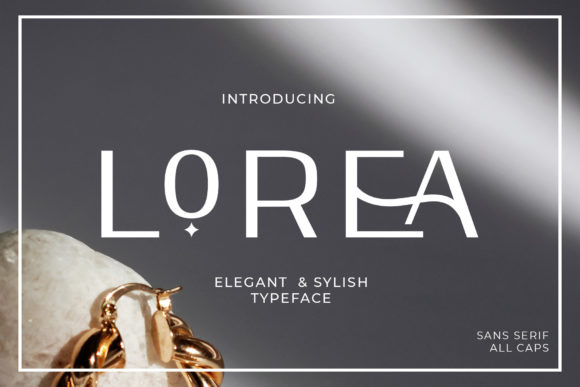
Introducing Lorea, the Modern Muse that elevates your digital designs. This captivating sans serif font, crafted by the masterful hands at Mytype Studio, is not just a collection of glyphs, but an artistic odyssey waiting to be explored. Every curve, every stroke, every meticulously designed detail exudes style, fluidity, and an undeniable charm that will leave you spellbound.
Lorea is an artistic chameleon, seamlessly adaptable to a myriad of projects. Its innate versatility makes it an ideal choice for modern logo designs, captivating website headlines, sleek social media posts, and captivating branding materials. Its stylish alternates and elegant ligatures dance in perfect harmony, adding a touch of sophistication and intrigue to your creations.
Embrace Lorea as the perfect partner for your design endeavors. Its crisp, clean lines add a timeless elegance to any layout, while its subtle curves infuse a sense of warmth and approachability. Whether you're crafting a corporate identity, designing a marketing campaign, or simply seeking a font that speaks to your unique creative vision, Lorea is the muse you've been searching for.
Discover the endless possibilities that await with Lorea. Embark on a transformative design journey where beauty meets functionality, where elegance collides with versatility, and where your imagination knows no bounds. Download Lorea today and unlock a world of design magic.